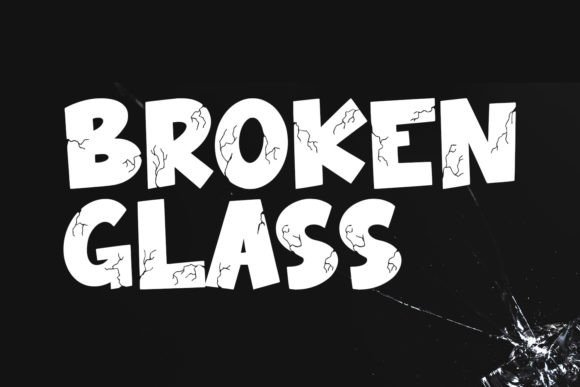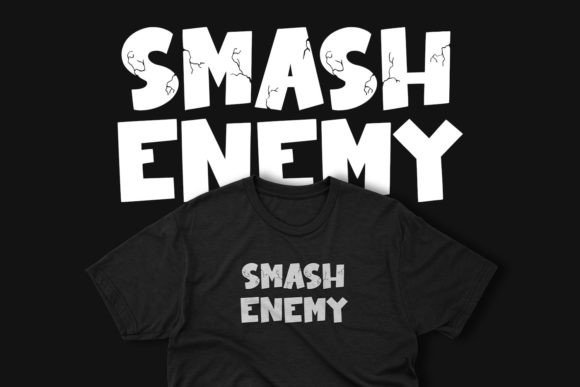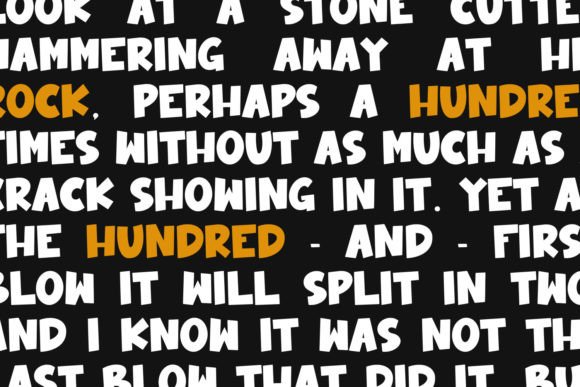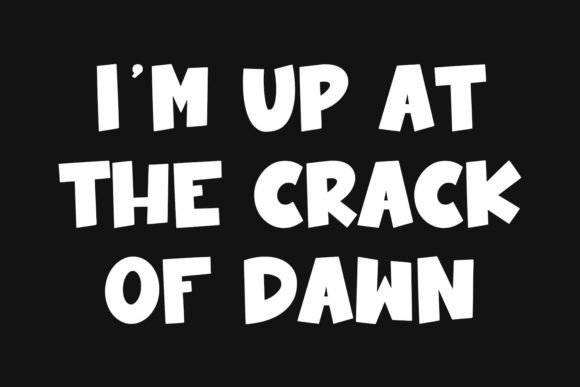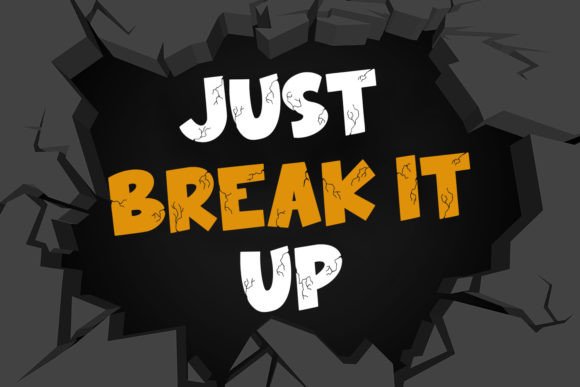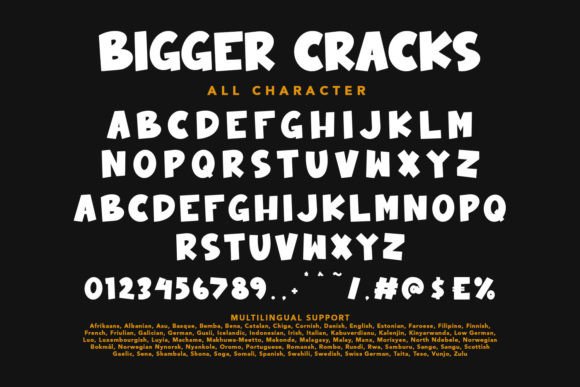
Bigger Cracks Font: Elevate Your Designs with a Trendy and Edgy Touch
In the world of digital design, fonts play a crucial role in conveying the tone and personality of a brand or creative project. If you’re looking for a font that exudes charm, character, and a dash of edginess, look no further than Bigger Cracks Font. This trendy and attractive display font is designed to make a statement, adding a unique touch to any design project. In this article, we’ll explore the features and benefits of Bigger Cracks Font, and why it’s a must-have for designers and crafters.
What is Bigger Cracks Font?
Bigger Cracks Font is a display font that boasts a distinctive and eye-catching design. Its unique crackling effect gives it a rugged, edgy feel that’s perfect for designs that require a bold and attention-grabbing aesthetic. Whether you’re creating posters, album covers, social media graphics, or any other visual content, Bigger Cracks Font is sure to make your design stand out from the crowd.
Key Features of Bigger Cracks Font
- Unique and Eye-Catching Design: Bigger Cracks Font features a one-of-a-kind design that’s sure to grab attention. Its crackling effect adds a dynamic and energetic feel to your designs.
- PUA Encoded: This font is PUA (Private Use Area) encoded, which means you can access all glyphs and swashes effortlessly. This feature makes it easy to use and customize the font to suit your design needs.
- Trendy and Attractive: Bigger Cracks Font is a trendy and attractive font that’s perfect for designers who want to add a touch of edginess to their designs.
- Versatile: This font is versatile and can be used for a wide range of design projects, from posters and album covers to social media graphics and more.
Benefits of Using Bigger Cracks Font
So, why should you choose Bigger Cracks Font for your design projects? Here are just a few benefits of using this amazing font:
- Adds Edginess to Your Designs: Bigger Cracks Font adds a touch of edginess to your designs, making them stand out from the crowd.
- Easy to Use: This font is easy to use and customize, thanks to its PUA encoding.
- Increases Visual Impact: The unique crackling effect of Bigger Cracks Font increases the visual impact of your designs, making them more engaging and attention-grabbing.
- Perfect for Creative Projects: This font is perfect for creative projects that require a bold and eye-catching aesthetic.
In conclusion, Bigger Cracks Font is a trendy and attractive display font that’s perfect for designers and crafters who want to add a touch of edginess to their designs. With its unique crackling effect, PUA encoding, and versatility, this font is a must-have for any creative project. Whether you’re creating posters, album covers, or social media graphics, Bigger Cracks Font is sure to make your design stand out from the crowd. So why wait? Download Bigger Cracks Font today and elevate your designs with a trendy and edgy touch!